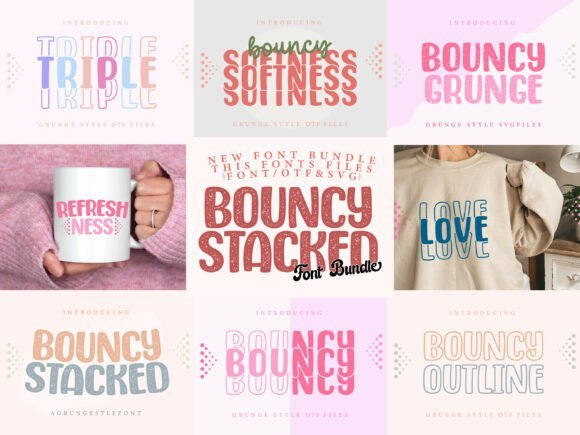
When a Design Spark Strikes
Have you ever been rummaging through a thrift store or vintage shop, stumbling upon an old, worn-out poster that instantly sparks your creativity? The faded colors, the distressed texture, and the nostalgia that comes with it – it’s a designer’s dream come true. That’s exactly what inspired the creation of the Bouncy Stacked Font bundle, a grunge font bundle that perfectly captures the essence of a bygone era.
With its rugged edges and weathered texture, this font is perfect for designers looking to add a touch of grit and nostalgia to their projects. Whether you’re working on a logo, a music cover, or urban-themed graphics, the Bouncy Stacked Font is an excellent choice for creating attention-grabbing titles and headlines that truly stand out.
Bouncy Stacked Font Key Features
- Unique Characteristics: The Bouncy Stacked Font features a unique, stacked design with bouncy curves and rounded edges, giving it a playful and eye-catching appearance
- Font Style: The font comes in both regular and bold styles, allowing designers to choose the perfect weight for their project
Bouncy Stacked Font Review
First off, I love the playful, whimsical vibe of this font. ✨ It’s perfect for adding a touch of fun to headings, titles, and other design elements. The bouncy feel of the stacked letters really makes it stand out and grabs the user’s attention. ✨ The font is also highly customizable, allowing you to adjust the size, color, and spacing to fit your design needs.
However, there are a few limitations to keep in mind. ⚠️ For one, the font can be a bit overwhelming when used in large quantities or at very small sizes. It’s best to use it in moderation to avoid visual fatigue. Additionally, the font may not be as legible at very low resolutions or in situations where text is being zoomed in or out.
In terms of overall impression, I would say that the Bouncy Stacked Font is a great choice for designs that need a playful, eye-catching element. It’s perfect for children’s products, gaming, or any other industry where a fun, lighthearted tone is desired.
Design Considerations:
- Use in moderation to avoid overwhelming the design.
- Customize the font size, color, and spacing to fit your design needs.
- Avoid using at very low resolutions or in situations where text is being zoomed in or out.
Bouncy Stacked Font: A Practical Application Guide
The Bouncy Stacked Font is ideal for:
- Creating eye-catching headings and titles
- Adding a playful touch to designs and presentations
Q: Can I customize the Bouncy Stacked Font’s bouncy effect?
Yes, you can customize the Bouncy Stacked Font’s bouncy effect using a variety of tools and techniques. You can adjust the font’s animation settings, such as the bounce amplitude and duration, to create a customized effect. You can also use design software such as Adobe